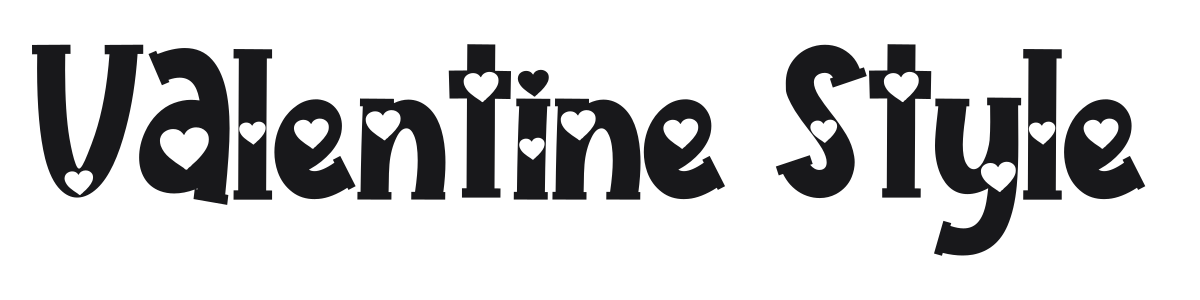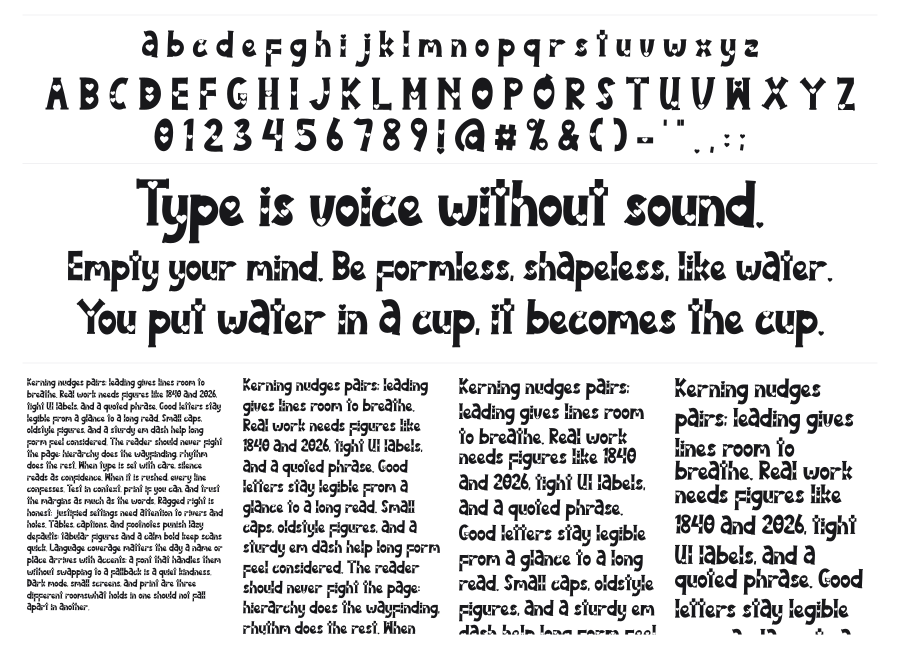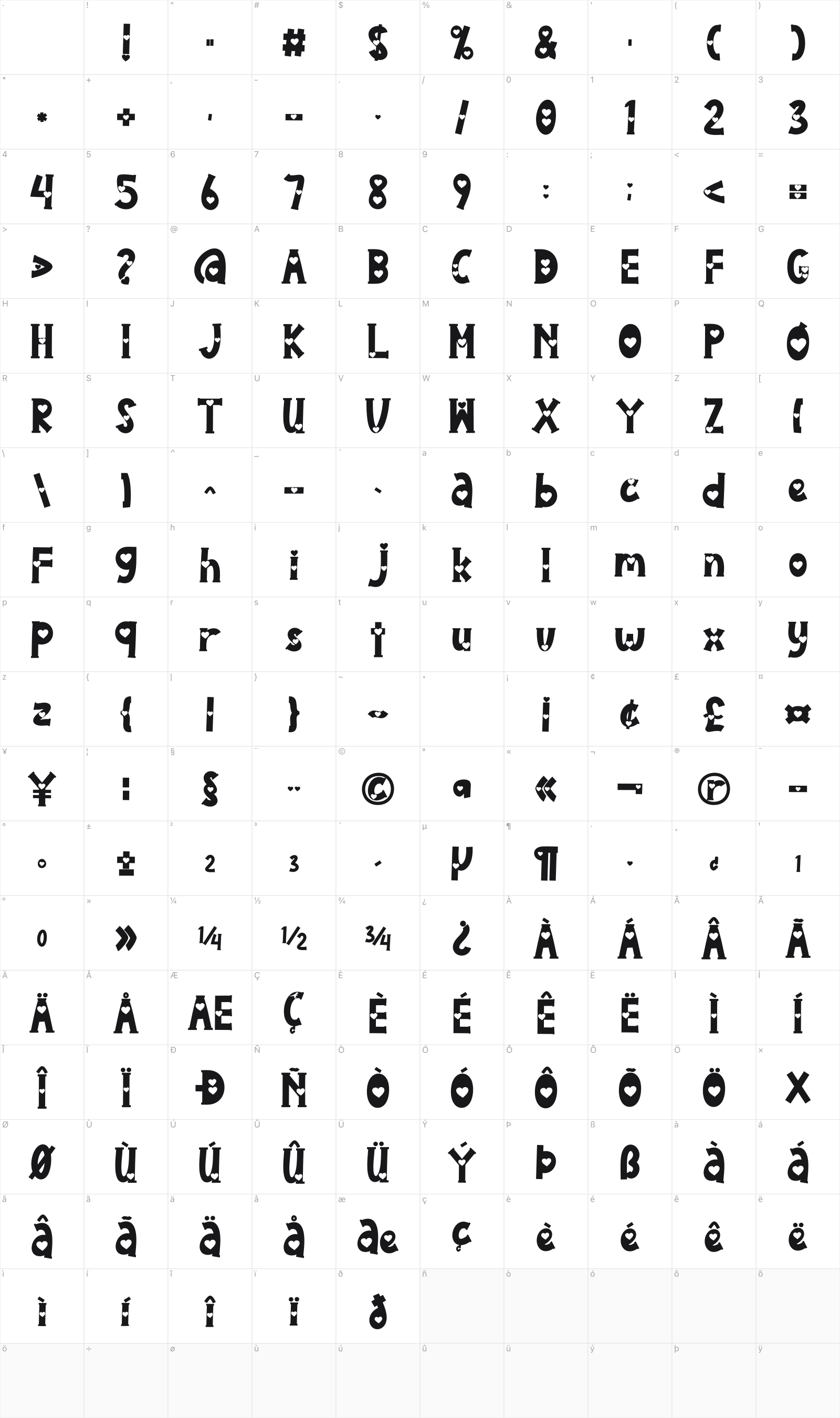
Valentine Style
Valentine Style is a chunky, bold display serif built around heart-shaped cutouts punched directly into the strokes of each character. The heavy weight and irregular proportions give it a handmade, festive energy that reads clearly at large sizes. It is squarely at home on Valentine's Day cards, gift packaging, and seasonal promotions.